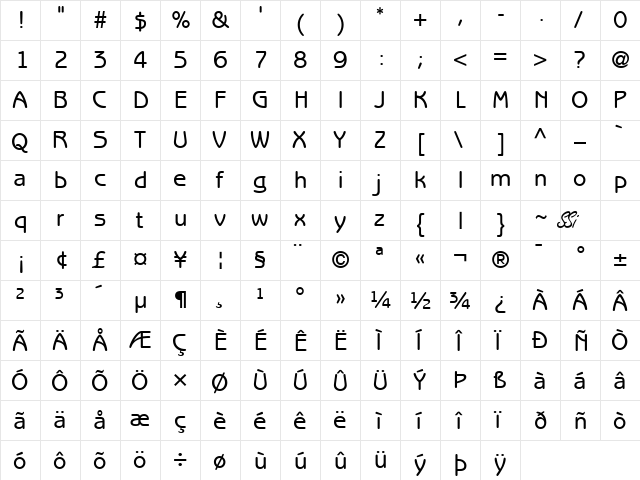
Express Deco Gothic SSi Regular
Design Context for Express Deco Gothic SSi Typeface
Express Deco Gothic SSi has the quiet confidence of well-executed sans-serif typography: versatile, unobtrusive, and dependable at any size.
Font Pairing: Works well alongside a characterful serif or display font that can carry the expressive load while Express Deco Gothic SSi handles the functional copy.
Pro Tip: Pair Express Deco Gothic SSi with a display or serif font for headlines — its neutral character makes it an excellent supporting player in complex typographic systems.